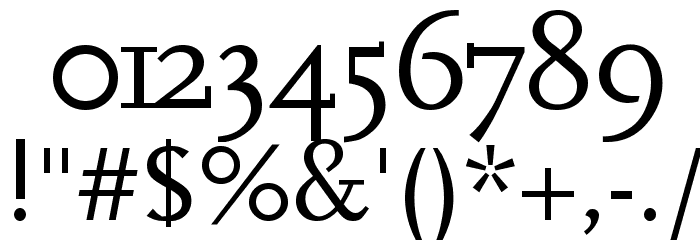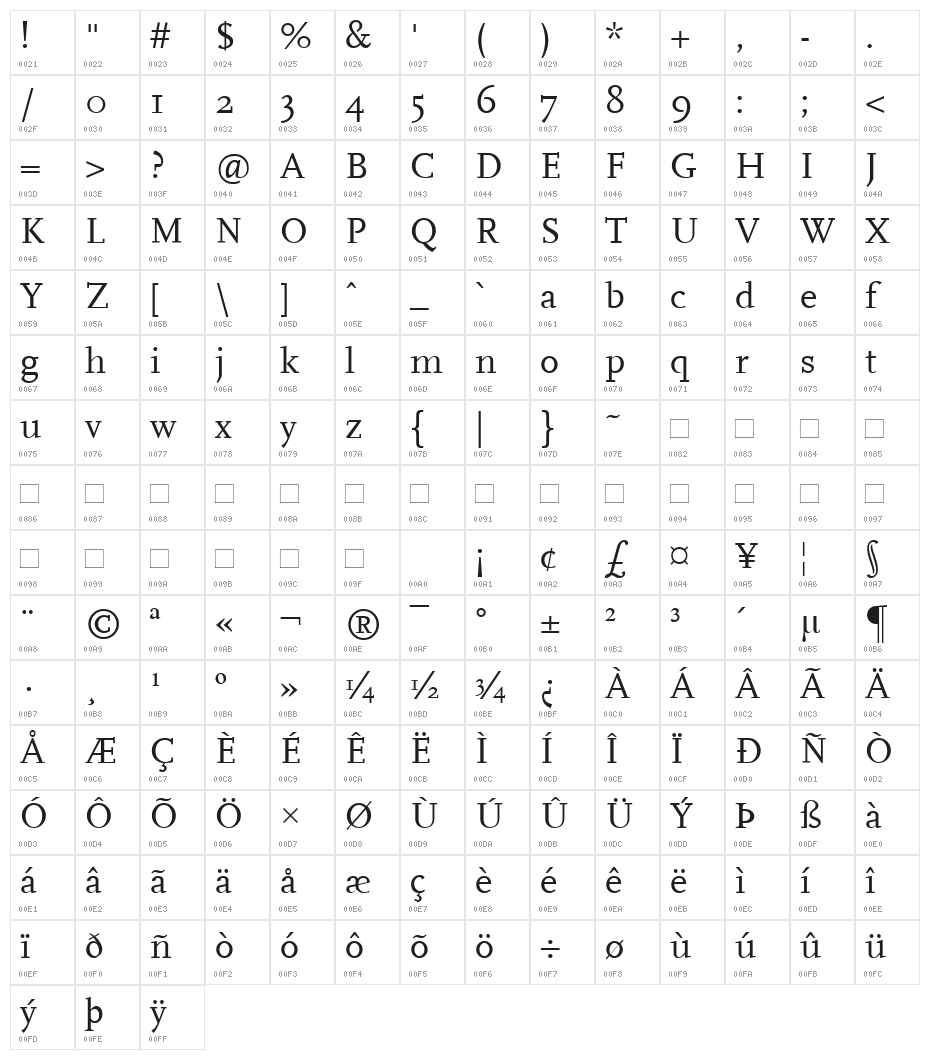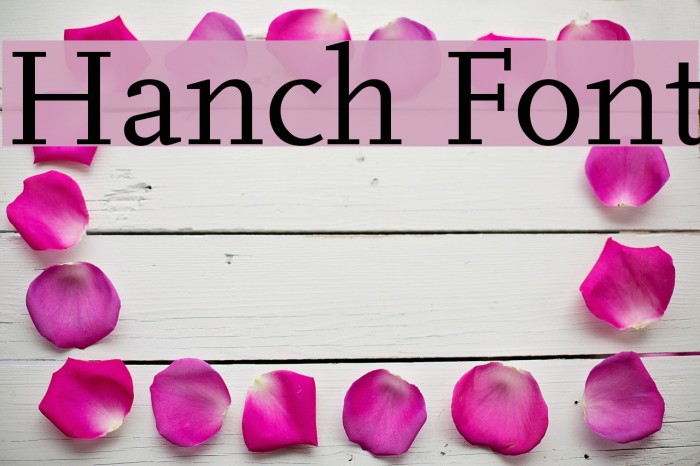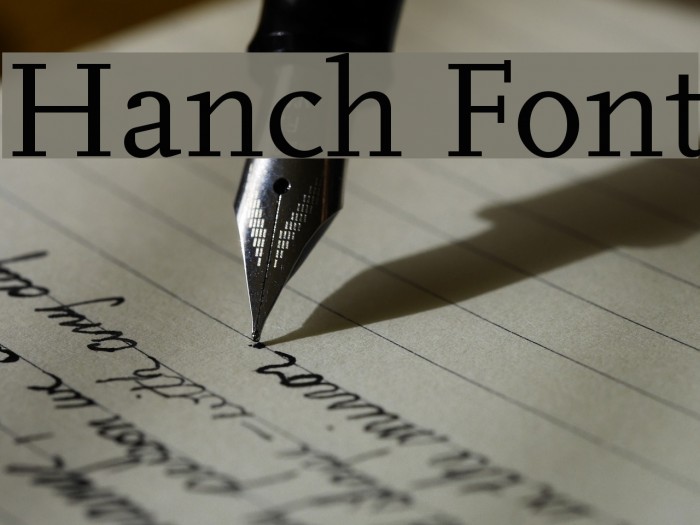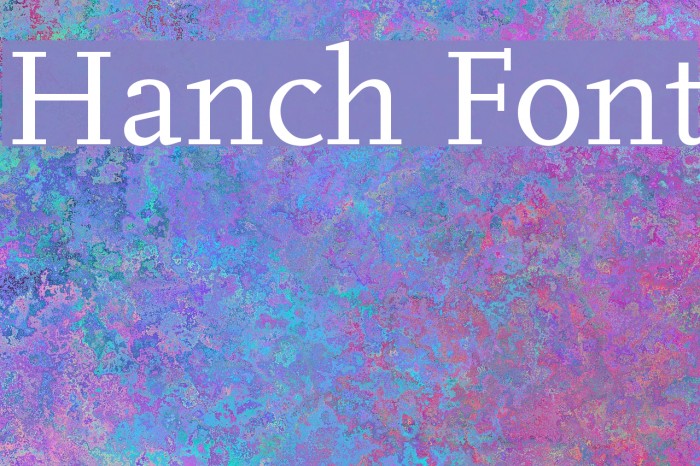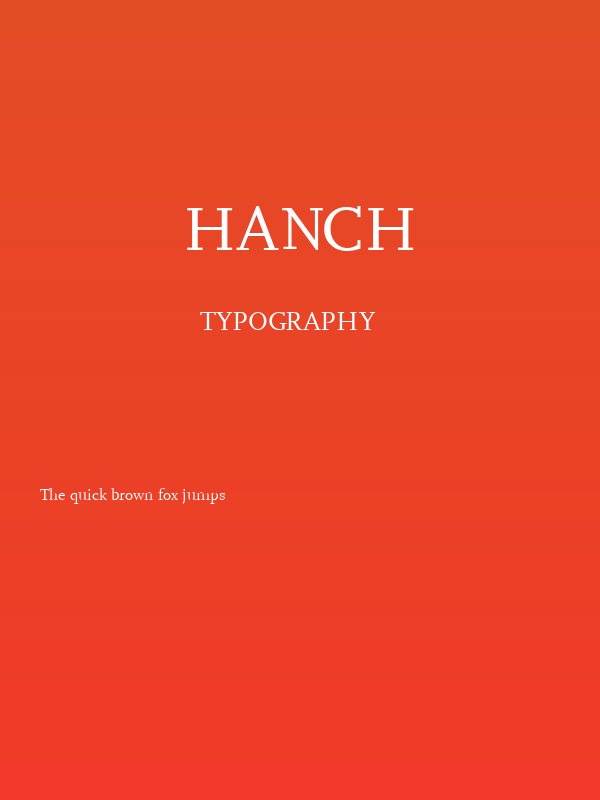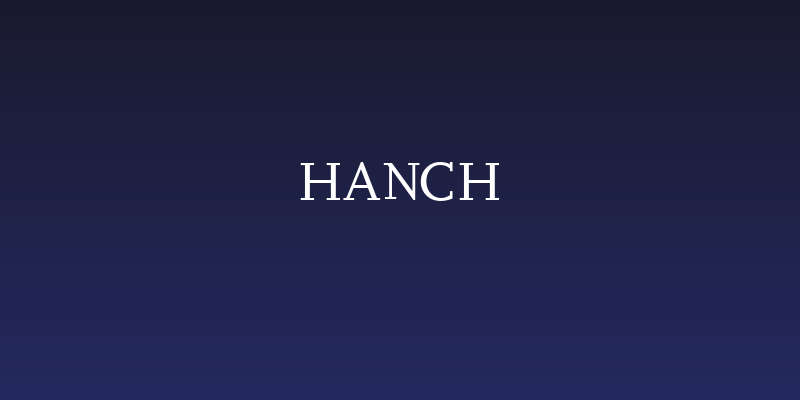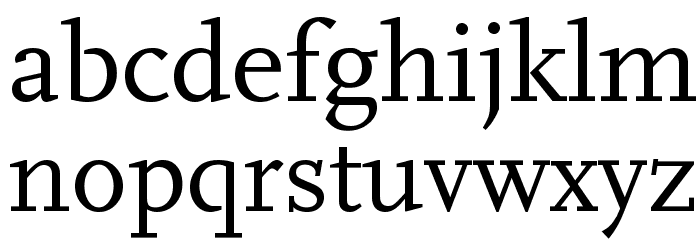
Hanch Font
Hanch Description
This font embodies a classic serif style with elegant and refined strokes. The characters feature a moderate contrast between thick and thin lines, giving it a sophisticated appearance. The serifs are well-defined, adding a touch of tradition and formality. The uppercase letters are bold and commanding, while the lowercase letters maintain a balanced and harmonious flow. The numerals are distinct and clear, ensuring readability. Special characters are crafted with precision, maintaining the overall aesthetic of the font. This typeface is versatile, suitable for both digital and print media.
Roger White - web.archive.org/web/20120416090521/www.rogersfonts.org.uk/
| Proposed Projects | Ideal for editorial design, book covers, formal invitations, and branding projects. |